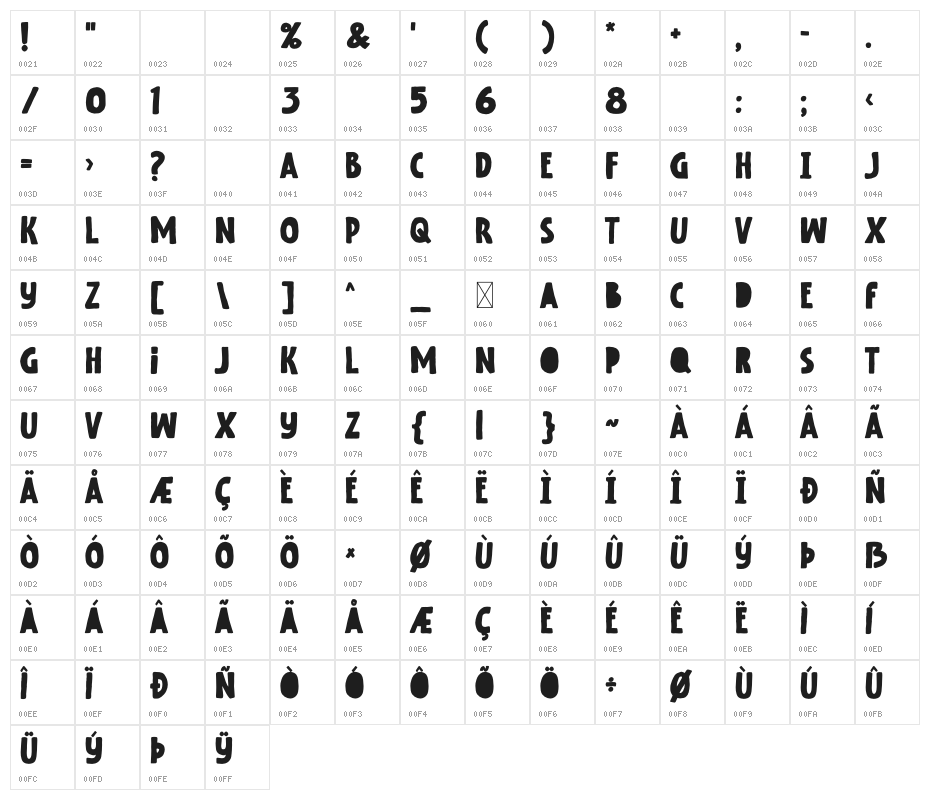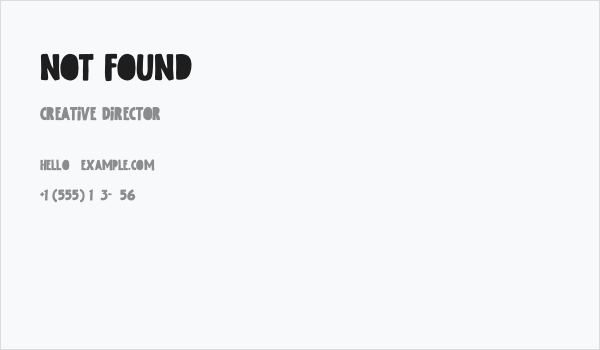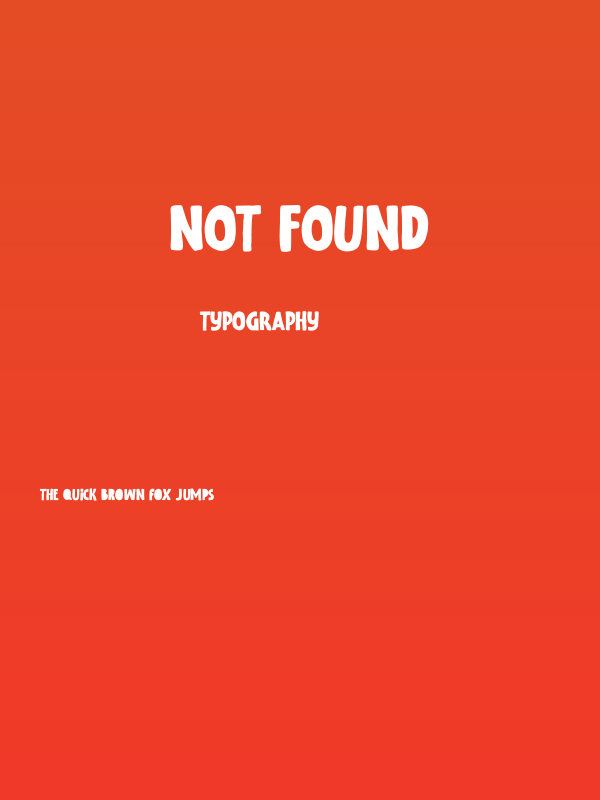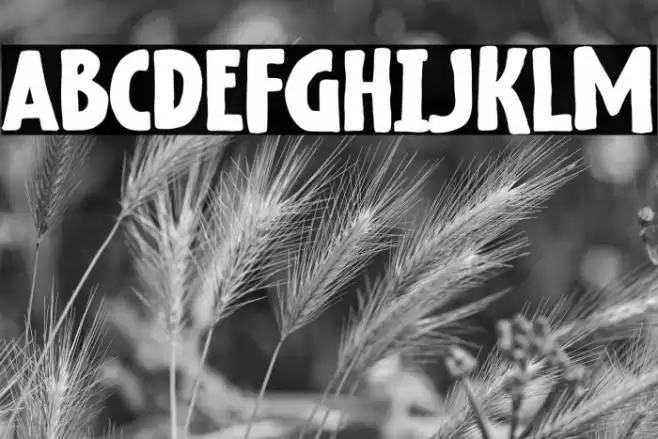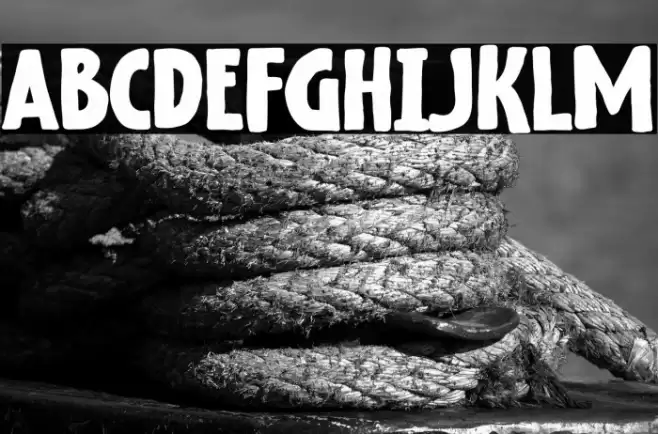
Not Found Font
Not Found Description
This font features bold, thick strokes with a playful and slightly irregular style, giving it a hand-drawn appearance. The characters are rounded and have a strong presence, making them highly visible and attention-grabbing. The uppercase and lowercase letters maintain a consistent weight, contributing to a cohesive look. The numbers and special characters follow the same bold and playful design, ensuring uniformity across all glyphs. This font's unique style makes it suitable for creative and informal applications.
| Overall Style | Playful, Hand-drawn |
| Use Case | Headlines, Posters, Branding |
| Proposed Projects | Ideal for children's books, playful branding, posters, and creative projects that require a bold and informal touch. |